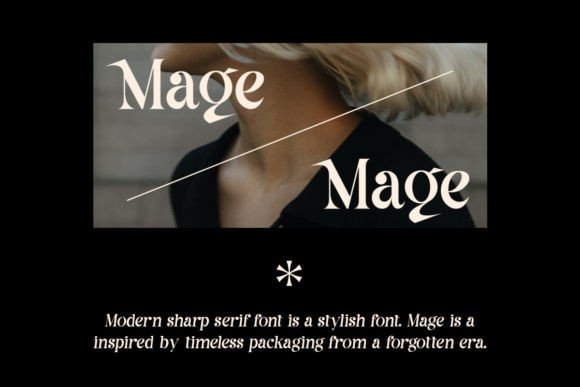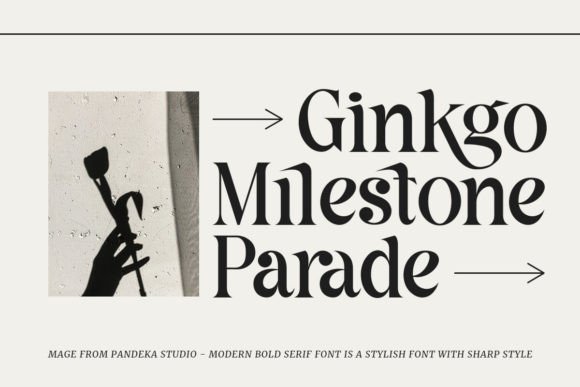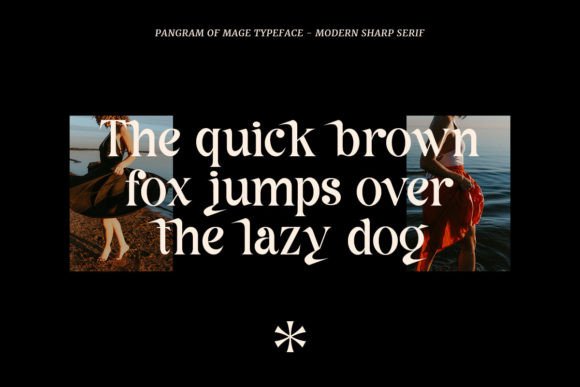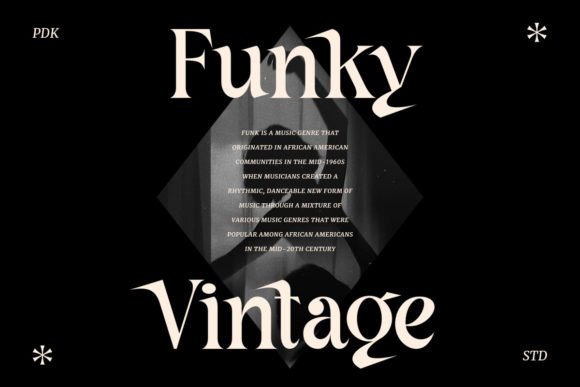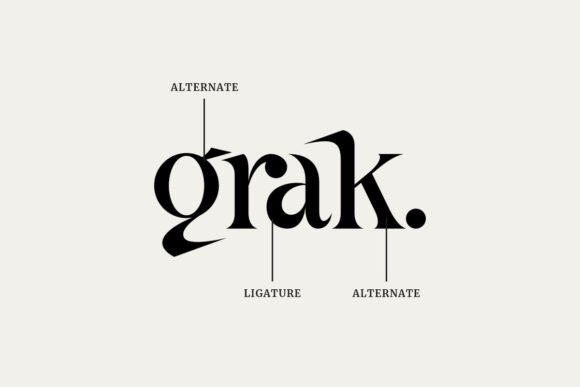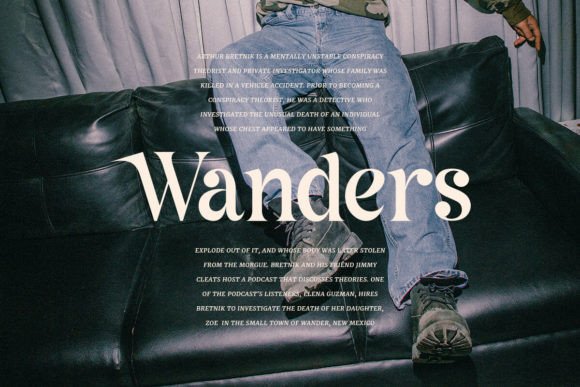
Introduction to Mage Font Font
Fonts play a crucial role in design, and the Mage Font font is a typeface that brings both character and versatility to any project. Whether you’re working on a branding project, a website, or a print design, the Mage Font font offers a unique style that can elevate your work.
Introducing a new sharp style font, Mage.
Mage – A serif typeface with an experimental and sharp style Mage is inspired by timeless packaging from a forgotten era.
Key Features of Mage Font Font
Why Choose Mage Font Font?
The Mage Font font is more than just a typeface – it’s a design tool that helps you communicate your message with style and clarity. Its unique character set and versatile design make it suitable for a wide range of applications, from elegant invitations to bold headlines.
With its carefully crafted letterforms and balanced proportions, the Mage Font font ensures readability and visual appeal across all mediums.
What makes Mage Font font special?
The Mage Font font stands out with its unique design, exceptional readability, and versatility across various design applications.